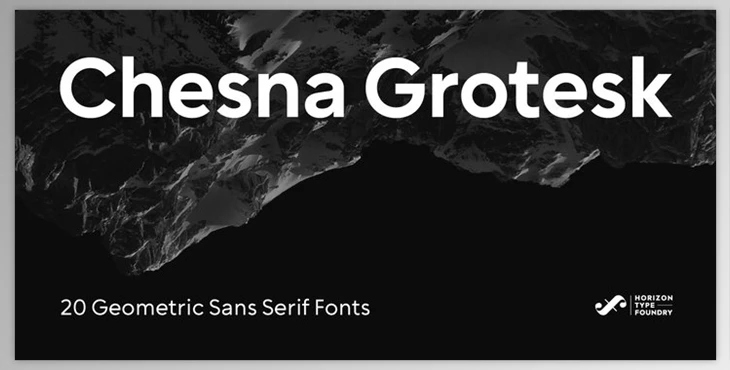
Chesna Grotesk Font Family:
Chesna Grotesk is a sans-serif typeface that is based on form. It features 20 weights, 10 uprights, and 10 Italics.
Chesna was inspired by typefaces like Avenir, Futura, and Circular, offering a fresh take on the classic grotesque look.
Each weight comes with extended support for language, including fractions, tabular numbers, arrows, alternative characters, and ligatures. (Please check out the pdf sample for further details.)
What is Chesna Grotesk?
Chesna Grotesk is a versatile sans-serif typeface with a comprehensive range of weights and styles. The mention of inspiration from classic grotesque typefaces like Avenir, Futura, and Circular suggests that Chesna Grotesk aims to provide a modern interpretation while drawing from established design principles.
The inclusion of features such as extended language support, fractions, tabular numbers, arrows, alternative characters, and ligatures indicates that Chesna Grotesk is designed to be a functional and flexible typeface suitable for various design applications.